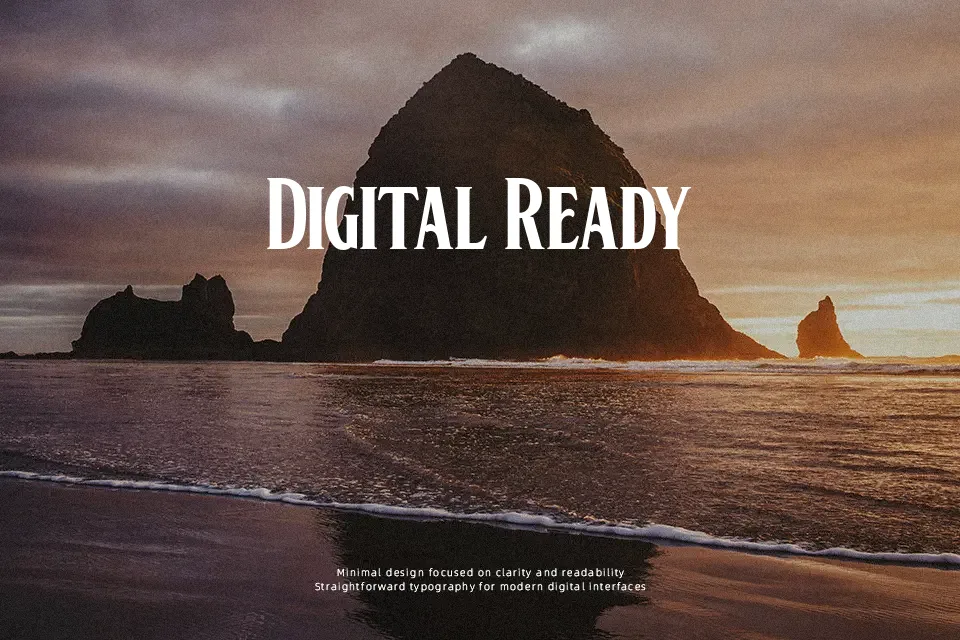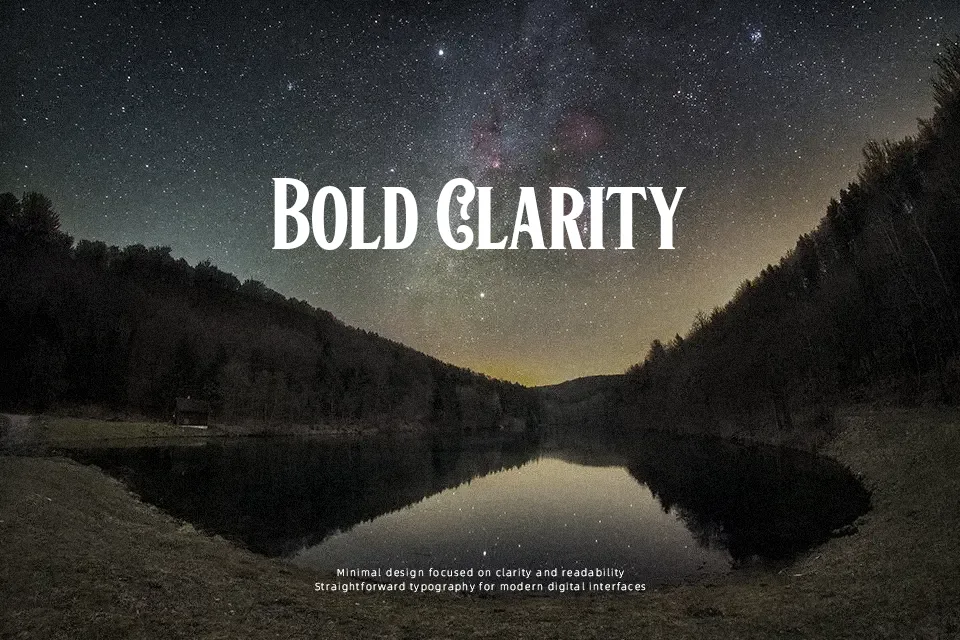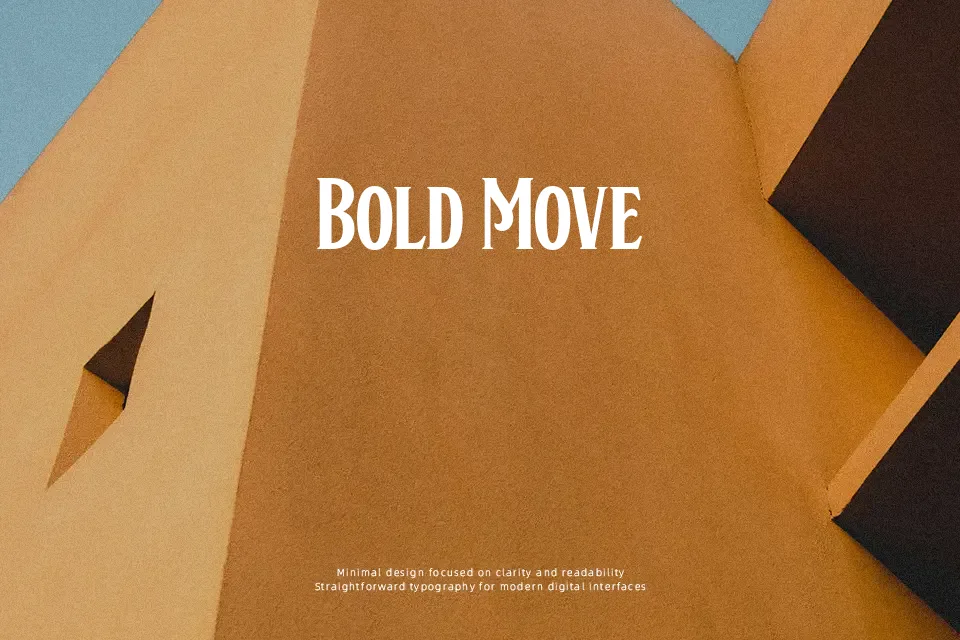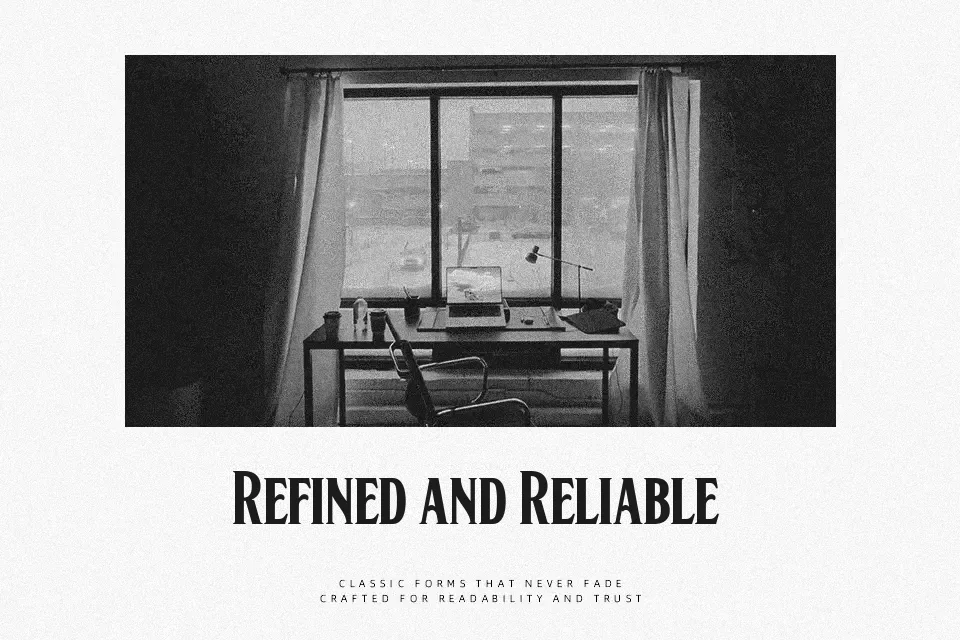
Cairlinn Font
Cairlinn is a serif typeface shaped by early advertising lettering, with upright forms, moderate contrast, and compact spacing that gives text a dense, purposeful texture. Its caps feel bold and structured, while the lowercase keeps things readable enough for short paragraphs and larger captions. The overall impression leans vintage and slightly rugged rather than polished luxury, so it brings character to labels, t‑shirts, badges, and poster headlines that need a historic or handcrafted angle. It can handle short editorial pull quotes, but the tight rhythm and decorative flair make it less suited to small-size body text or minimalist, ultra-modern interfaces.
vintage product labels and packaging
retro t-shirt and merch graphics
badges, logos, and typographic marks with a nostalgic tone
event posters and headlines referencing classic advertising
long-form body text at small sizes
minimalist or very modern digital interfaces
highly formal corporate documents
on-screen reading where maximum clarity is required